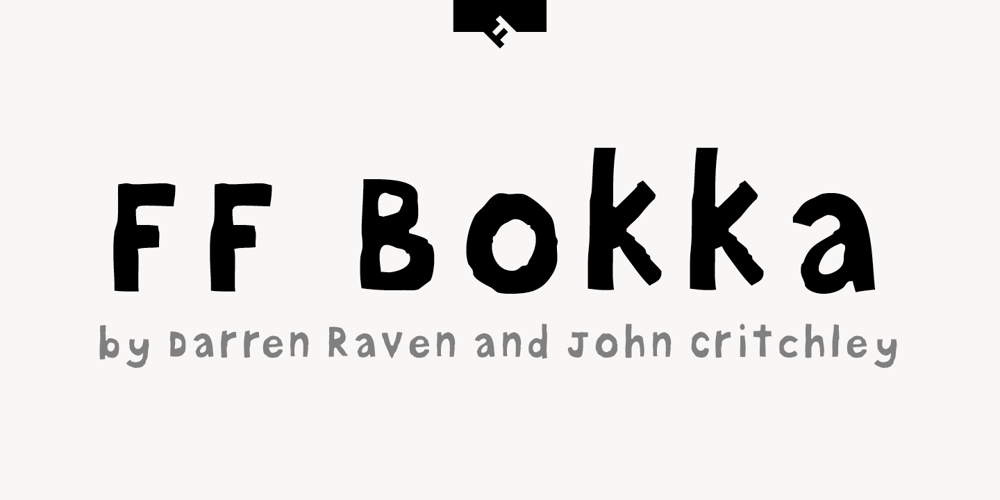
FF Bokka
FF Bokka font
FF Bokka Font Family was designed by John Critchley, Darren Raven and published by FontFont. FF Bokka contains 5 styles and family package options. British type designers Darren Raven and John Critchley created this display FontFont in 1997. The family has 5 weights, and is ideally suited for editorial and publishing, logo, branding and creative industries, music and nightlife as well as poster and billboards. FF Bokka provides advanced typographical support with features such as ligatures, alternate characters, and stylistic alternates. It comes with proportional lining figures.